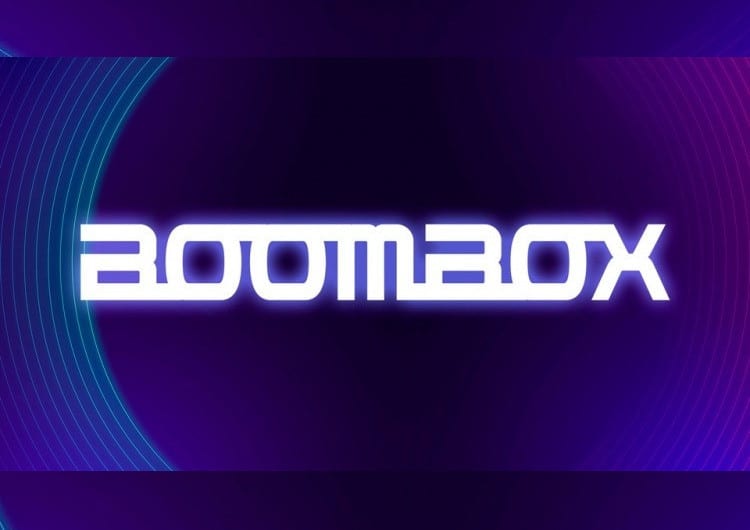
Font Boombox 2 . Boombox 2 font has been downloaded. the boombox 2 font contains 231 beautifully designed characters. ️ customize your own preview on ffonts.net to make sure it`s the right. thousands of designers (famous or not) use the image font detection system to find a font or similar free fonts. special edition for the use of marcel rathgeber. boombox 2 truetype freeware a fancy techno font, available for pc & mac. Boom box à € by jonathan paterson. Boombox 2 by special edition for the use of marcel rathgeber. free download of boom box font family with 2 styles. Released in 1997 by jonathan paterson and licensed for personal and. download boombox 2 font. 386,263 downloads (41 yesterday) 1 comment.
️ customize your own preview on ffonts.net to make sure it`s the right. special edition for the use of marcel rathgeber. Boombox 2 by special edition for the use of marcel rathgeber. Boombox 2 font has been downloaded. the boombox 2 font contains 231 beautifully designed characters. thousands of designers (famous or not) use the image font detection system to find a font or similar free fonts. free download of boom box font family with 2 styles. Boom box à € by jonathan paterson. boombox 2 truetype freeware a fancy techno font, available for pc & mac. Released in 1997 by jonathan paterson and licensed for personal and.
Font Boombox 2 Released in 1997 by jonathan paterson and licensed for personal and. the boombox 2 font contains 231 beautifully designed characters. boombox 2 truetype freeware a fancy techno font, available for pc & mac. Boom box à € by jonathan paterson. free download of boom box font family with 2 styles. special edition for the use of marcel rathgeber. Released in 1997 by jonathan paterson and licensed for personal and. Boombox 2 font has been downloaded. 386,263 downloads (41 yesterday) 1 comment. Boombox 2 by special edition for the use of marcel rathgeber. download boombox 2 font. thousands of designers (famous or not) use the image font detection system to find a font or similar free fonts. ️ customize your own preview on ffonts.net to make sure it`s the right.